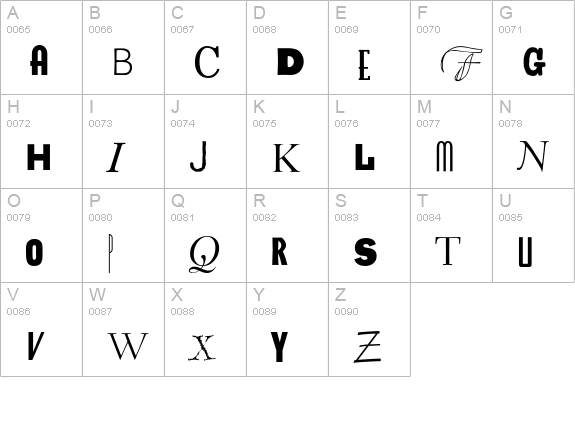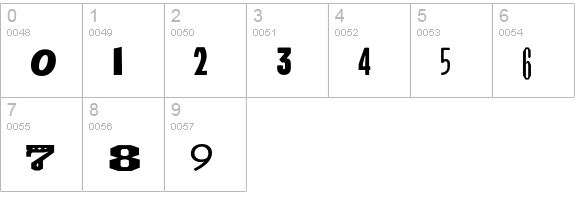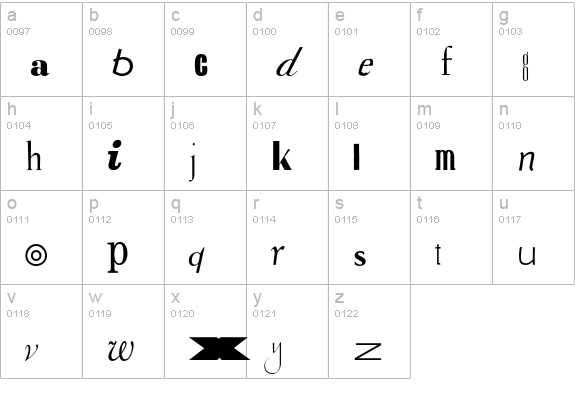
Introducing Ransom font, a captivating typeface that effortlessly combines elegance with a touch of mystery. This unique font is bound to steal the spotlight and leave a lasting impression on any design project. Its intricate letterforms and bold strokes command attention, making it perfect for headlines, logos, book covers, and more. What makes Ransom font even more enticing is that it is not only visually stunning but also completely free. Yes, you read that right! Ransom font is freely available to download at FontsMarket.com. Now, you can elevate your creative endeavors without having to worry about breaking the bank. Imagine the possibilities with Ransom font. Its versatility allows it to seamlessly fit into a wide range of design themes, whether it be vintage, modern, or even futuristic. Its timeless aesthetic ensures that it will remain relevant and captivating for years to come. With Ransom font, you have the power to captivate your audience and convey your message in a truly unforgettable way. Its striking presence on any medium, be it print or digital, will ensure that your design stands out from the crowd. Whether you're a seasoned designer or just starting out, Ransom font is a must-have in your typography arsenal. So why wait? Embrace the allure of Ransom font and unleash your creativity like never before. Download it for free at FontsMarket.com and let your designs speak volumes.